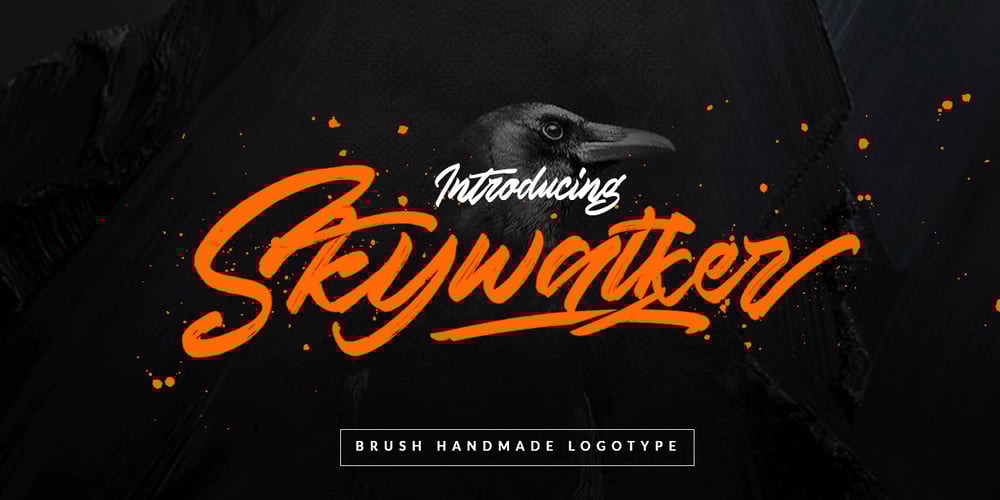
Skywalker
Skywalker font
Skywalker Font Family was designed by Hendra Maulia and published by Dirtyline Studio. Skywalker contains 2 styles and family package options. Skywalker is a hand brushed typeface, with authentic dry brush imperfections, and a very bouncy baseline It has a perfectly paired complimentary marker font , and a super handy set of bonus Swash. Ideal for logos, handwritten quotes, product packaging, header, poster, merchandise, social media & greeting cards.